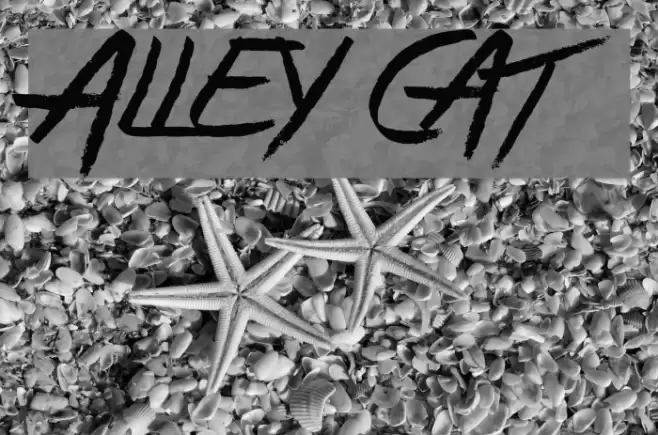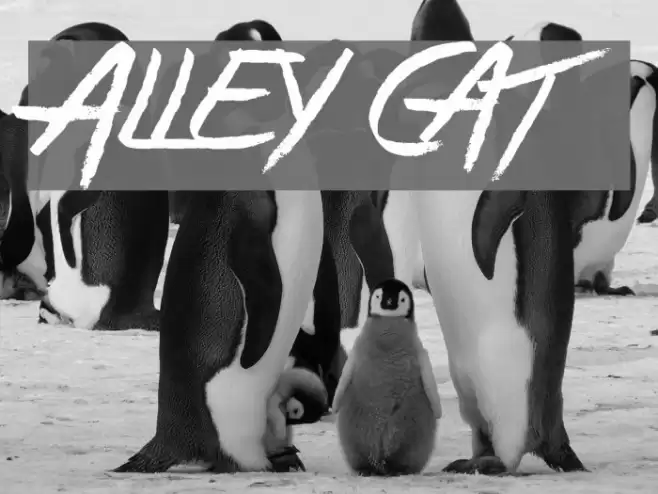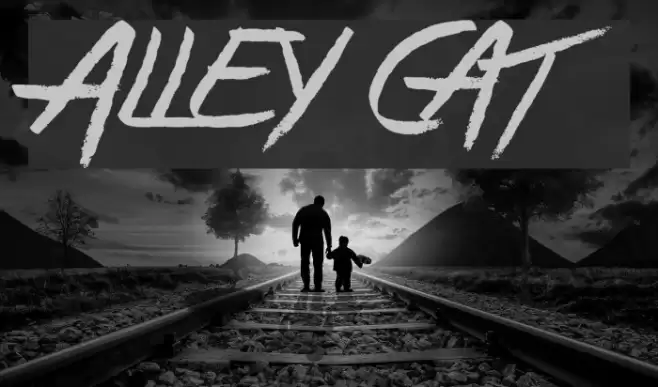
Alley Cat Font
Alley Cat Description
This font features a dynamic and energetic brush script style, characterized by its bold, sweeping strokes and slightly irregular letterforms. The uppercase and lowercase letters exhibit a sense of movement and spontaneity, reminiscent of hand-painted signage or graffiti art. The texture of the strokes suggests a dry brush effect, adding a raw and edgy feel to the overall design. This font is particularly effective in conveying a sense of urgency or excitement, making it suitable for projects that require a bold and impactful visual statement.
A bold, brush script font with dynamic, energetic strokes and a raw, edgy texture from Uncategorized fonts.
- Proposed Projects: Ideal for branding, posters, album covers, and any design needing a bold, artistic flair.